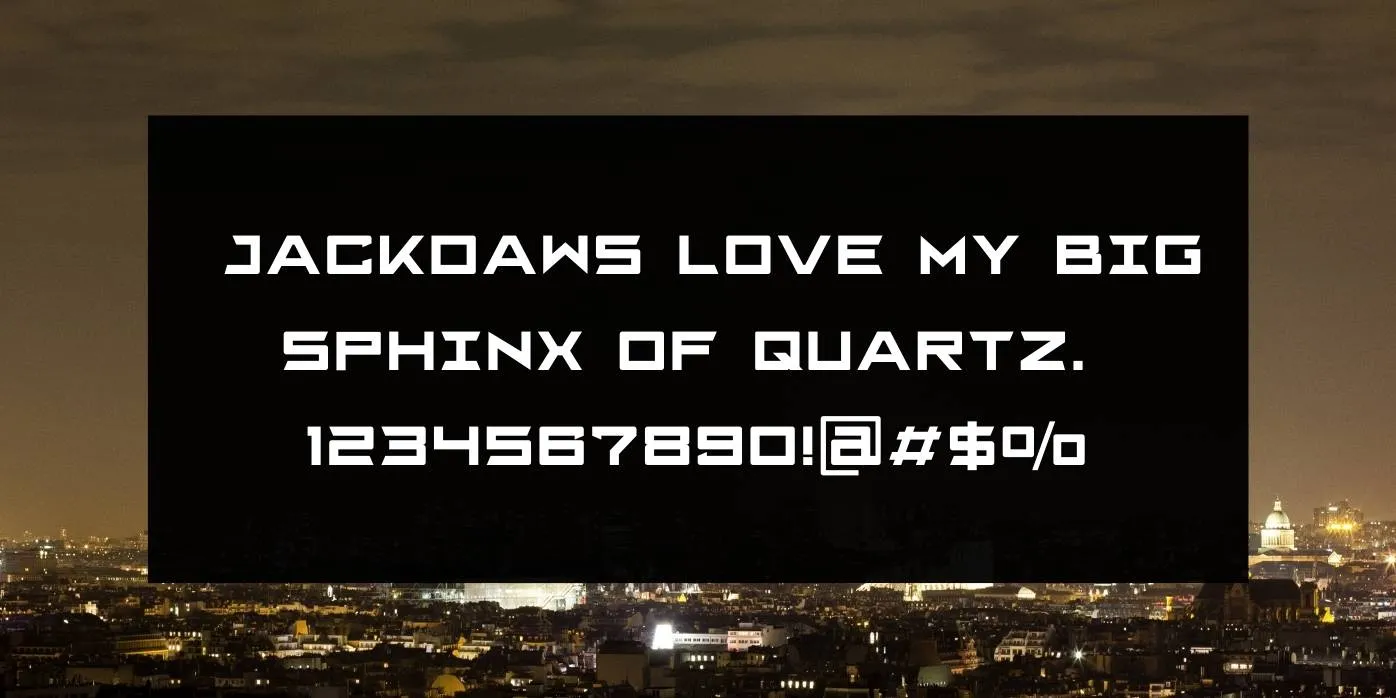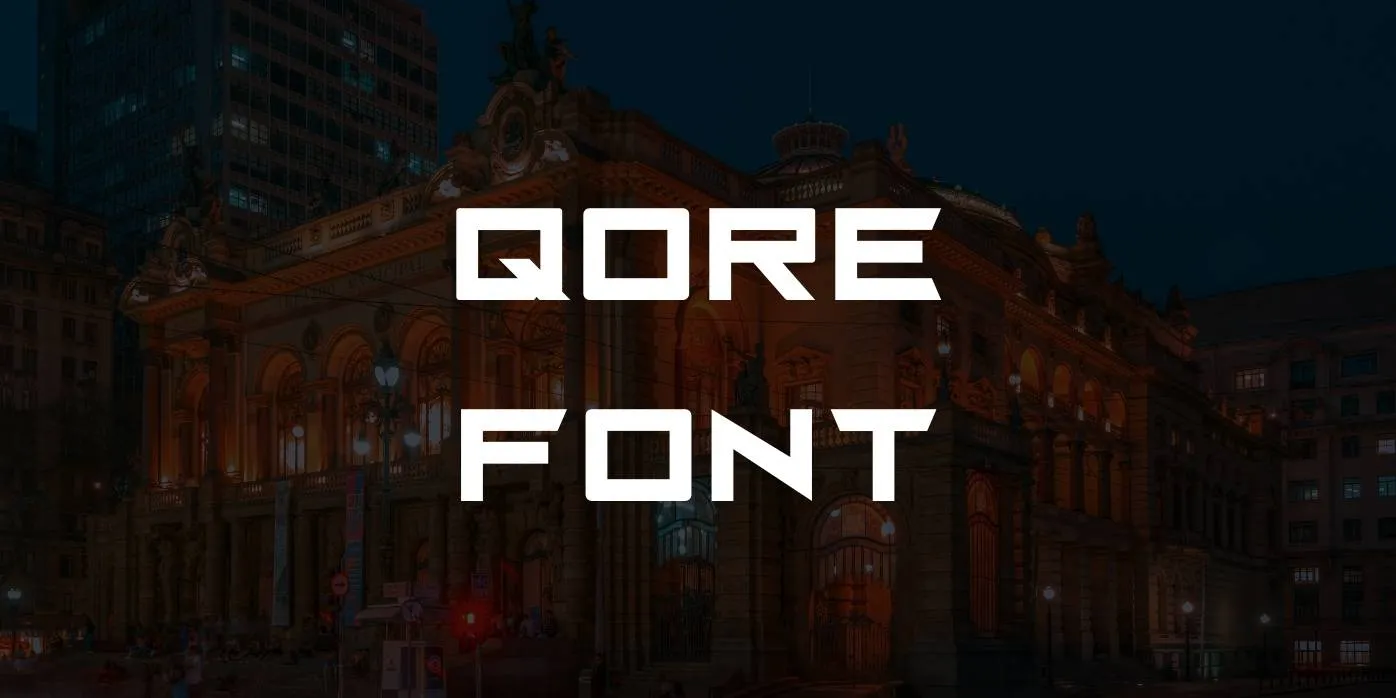
QORE Font
Here we discuss a brief introduction to the QORE font. It was designed by Ari Juanda and was launched by Line Creative. The classification is Science Fiction. This font is a display typeface with an innovative and ultra-modern style.
This outstanding texture supports 3 types of file formats TTF (TrueType font) OTF (OpenType Font) and WOFF (WebOpen Font Format). You can easily get it on your both operating systems PC and MAC and utilize its unique type of alphabet characters. It is available only in CAPS with a very decorative and bold style and has sharp edges and gives you a very heavy look with some square shape elements which make your project very impressive. You can also use this font for making web designs.